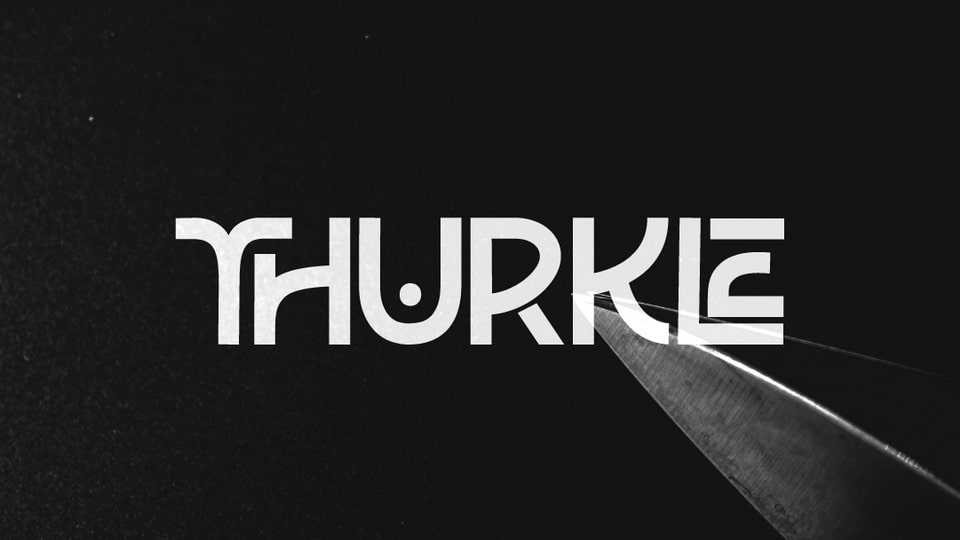
Thurkle Font › Fontesk – Download Grátis
Download Thurkle font, a new bold serif typeface that looks tough and playable. Comes with sharp edges, inspired by sword making dynasty in British History.